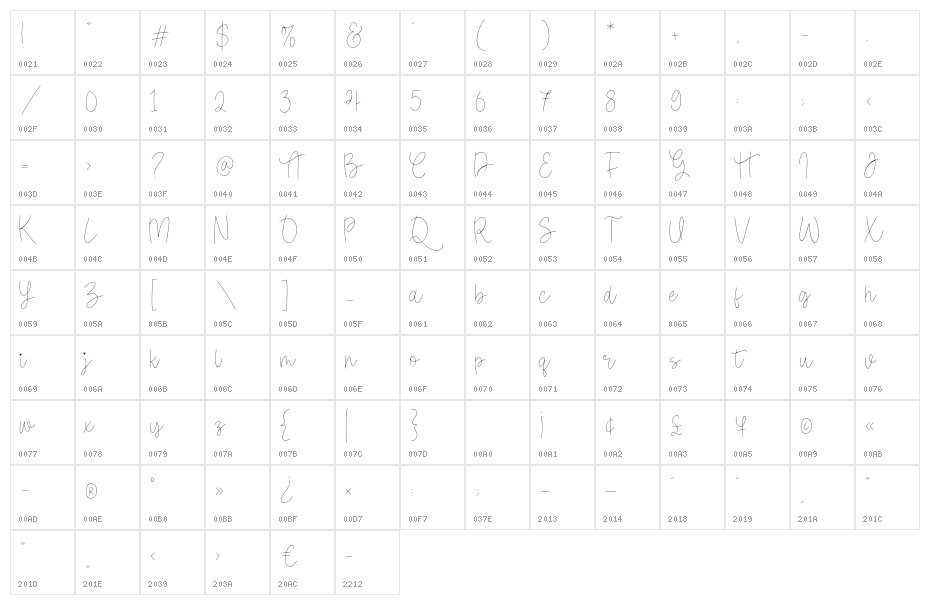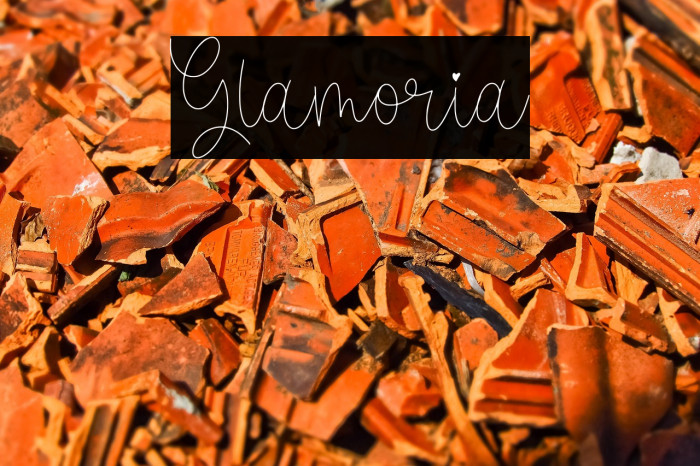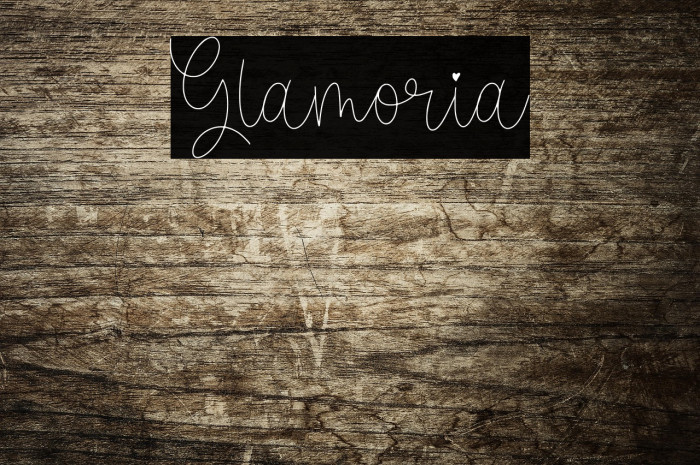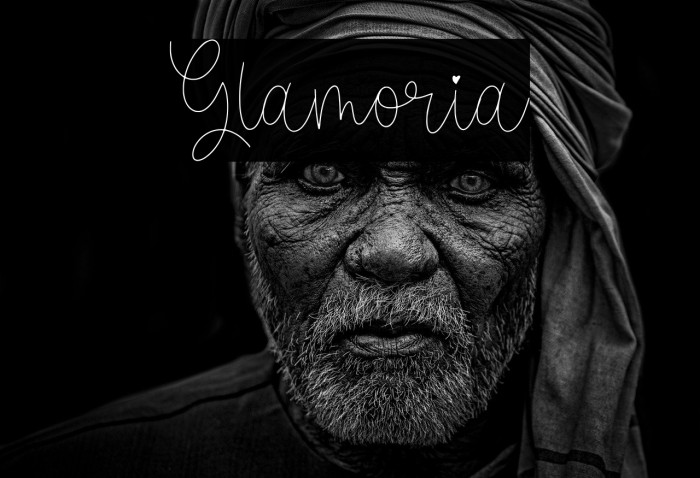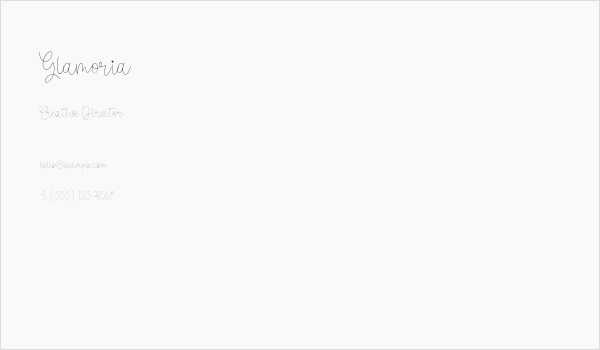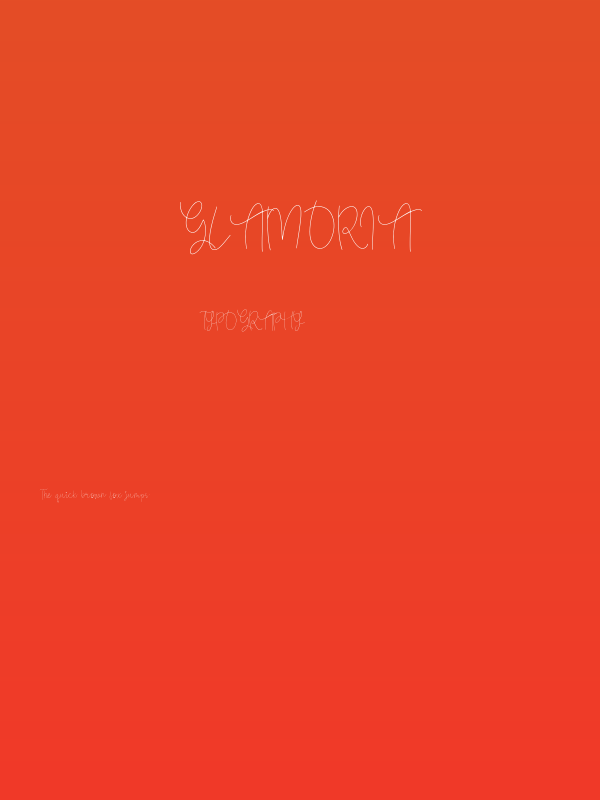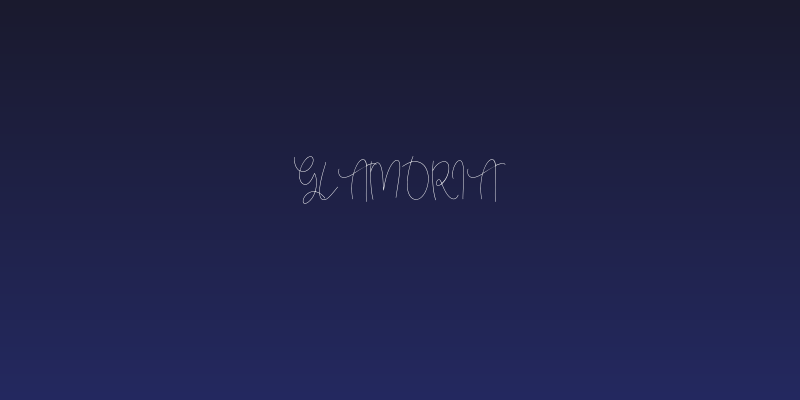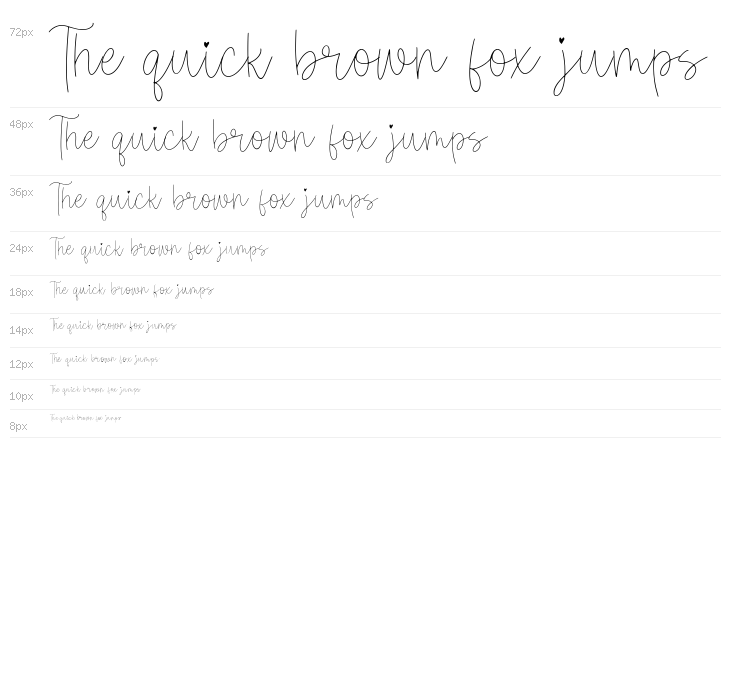
Glamoria Font
Glamoria Description
This font features a delicate and flowing script style, characterized by its elegant and graceful curves. The letters are interconnected with smooth, continuous strokes, giving it a handwritten appearance. The uppercase letters are slightly more elaborate, with extended loops and flourishes, while the lowercase letters maintain a consistent and harmonious flow. The numerals are designed to match the overall aesthetic, with a similar fluidity and elegance. Special characters are thoughtfully integrated, maintaining the font's cohesive style. This font exudes a sense of sophistication and charm, making it ideal for projects that require a personal and artistic touch.
| Overall Style | Elegant, Artistic |
| Proposed Projects | Wedding invitations, personal branding, greeting cards, elegant packaging, and artistic posters. |